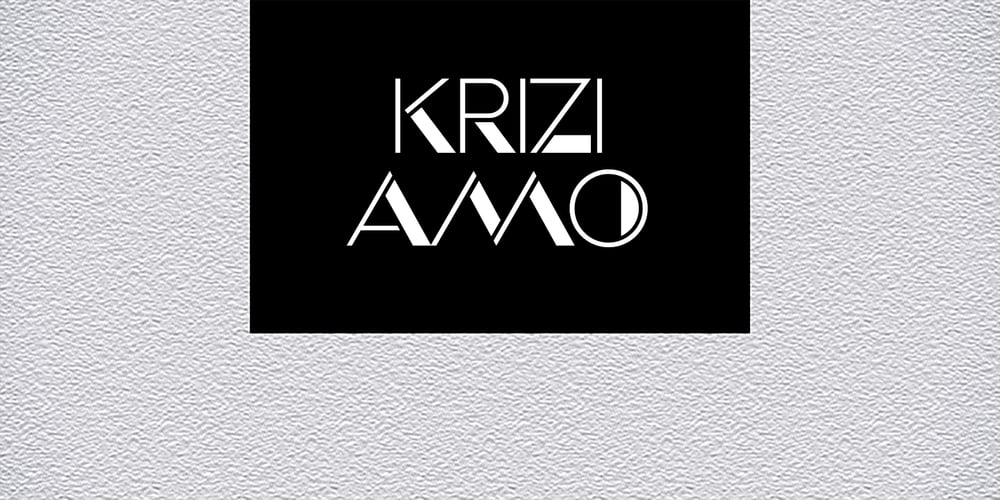
Krizi Amo Pro Font Family was designed by Roger S. Nelsson, Levente Halmos and published by CheapProFonts. Krizi Amo Pro contains 1 styles and family package options. Inspired by the lettering on a perfume, Halmos extrapolated a complete uppercase alphabet, and he also created a matching lowercase. Now the character set has been expanded completely, and this stylish Art Deco font is ready to create some headlines, new logos and wordmarks in many more languages. ALL fonts from CheapProFonts have very extensive language support: They contain some unusual diacritic letters (some of which are contained in the Latin Extended-B Unicode block) supporting: Cornish, Filipino (Tagalog), Guarani, Luxembourgian, Malagasy, Romanian, Ulithian and Welsh. They also contain all glyphs in the Latin Extended-A Unicode block (which among others cover the Central European and Baltic areas) supporting: Afrikaans, Belarusian (Lacinka), Bosnian, Catalan, Chichewa, Croatian, Czech, Dutch, Esperanto, Greenlandic, Hungarian, Kashubian, Kurdish (Kurmanji), Latvian, Lithuanian, Maltese, Maori, Polish, Saami (Inari), Saami (North), Serbian (latin), Slovak(ian), Slovene, Sorbian (Lower), Sorbian (Upper), Turkish and Turkmen. And they of course contain all the usual “western” glyphs supporting: Albanian, Basque, Breton, Chamorro, Danish, Estonian, Faroese, Finnish, French, Frisian, Galican, German, Icelandic, Indonesian, Irish (Gaelic), Italian, Northern Sotho, Norwegian, Occitan, Portuguese, Rhaeto-Romance, Sami (Lule), Sami (South), Scots (Gaelic), Spanish, Swedish, Tswana, Walloon and Yapese.